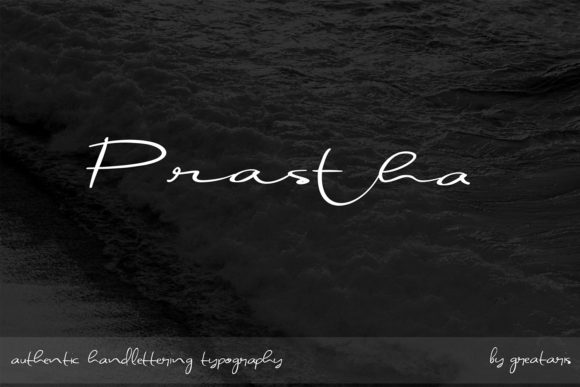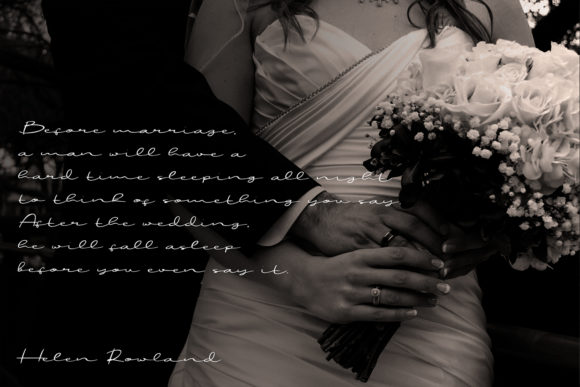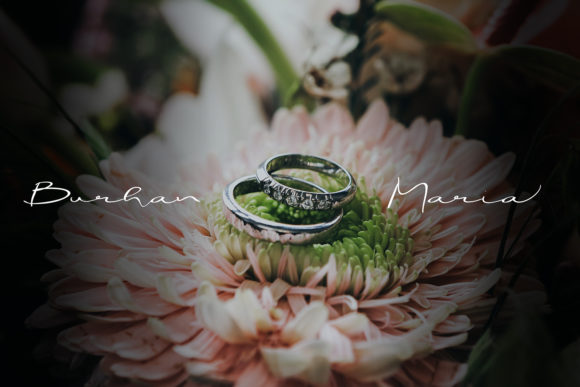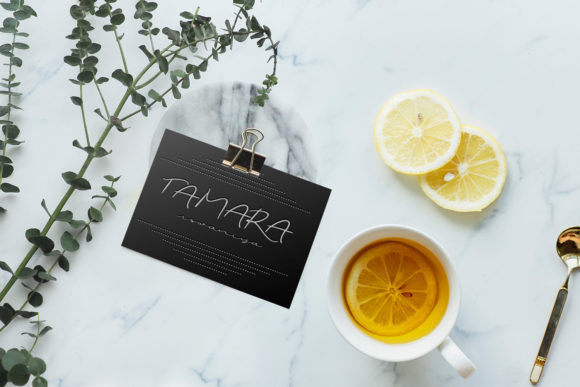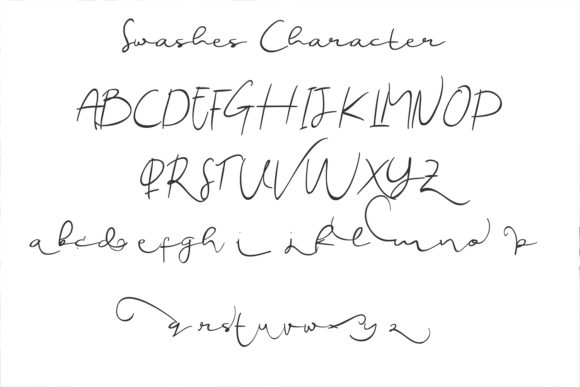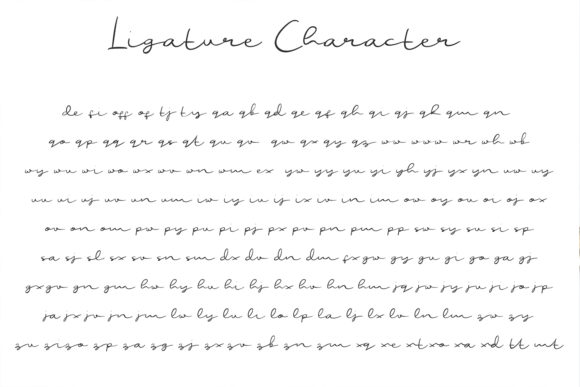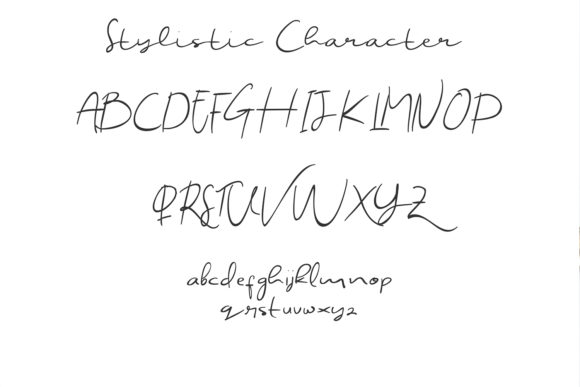
Prastha Font
About Prastha Font
The Prastha is a beautiful handwritten script. It has a natural writing style which can be used to add a personal touch to your designs.